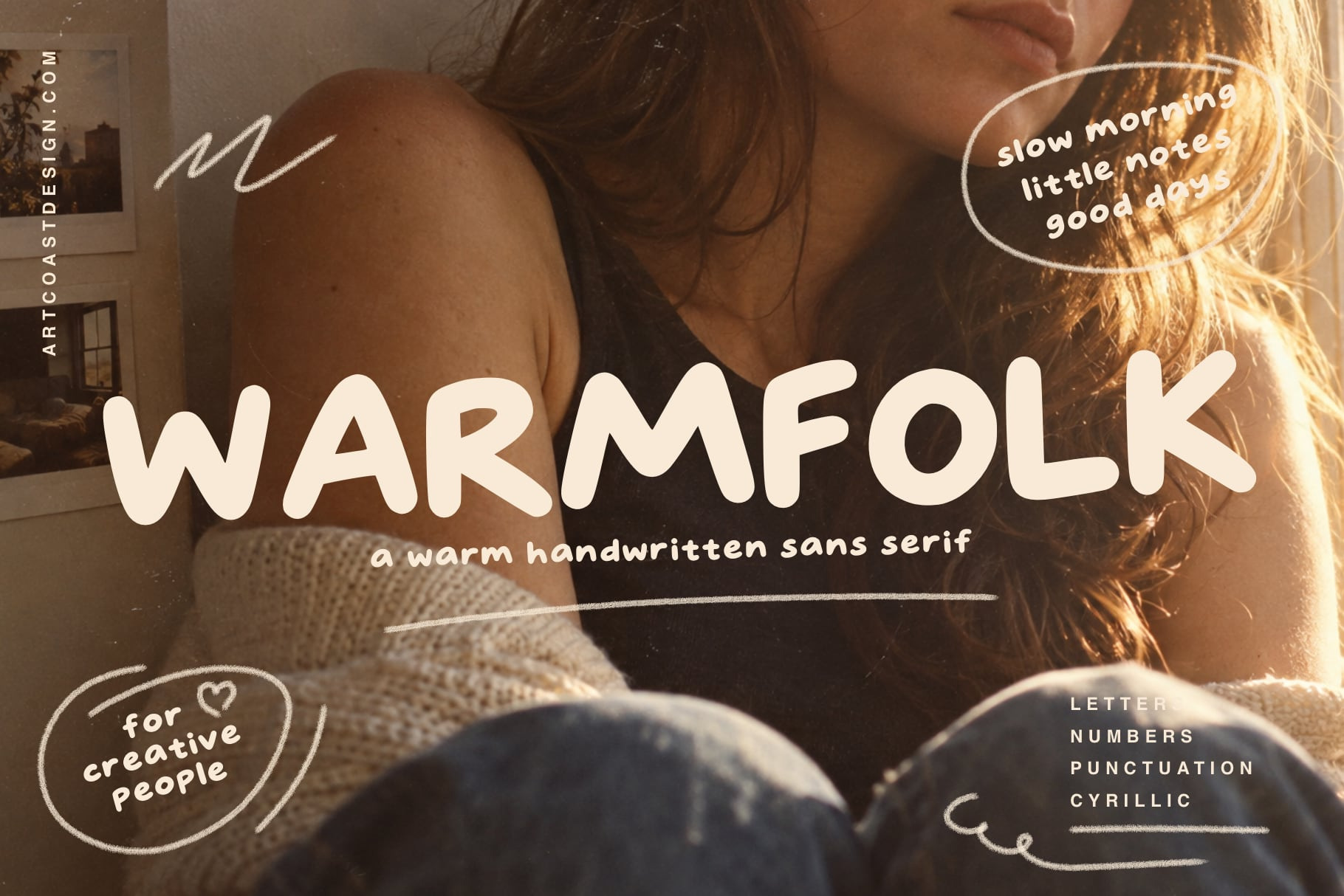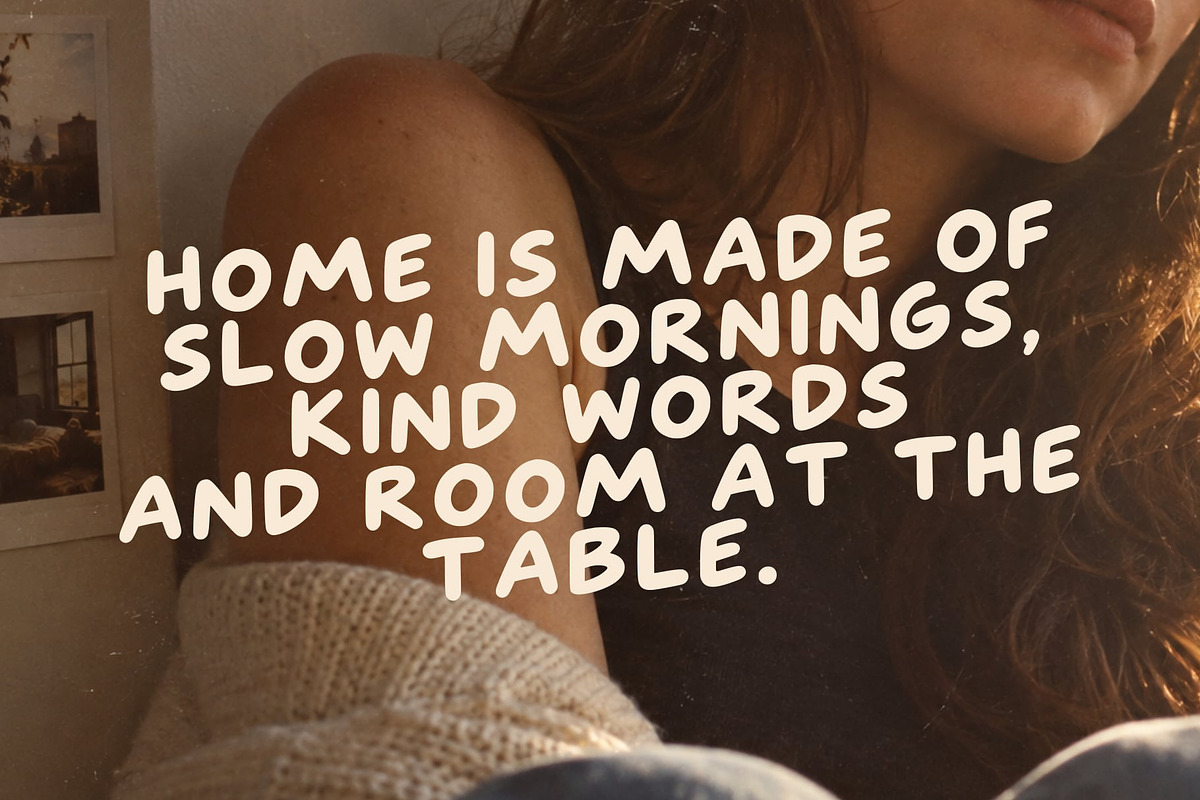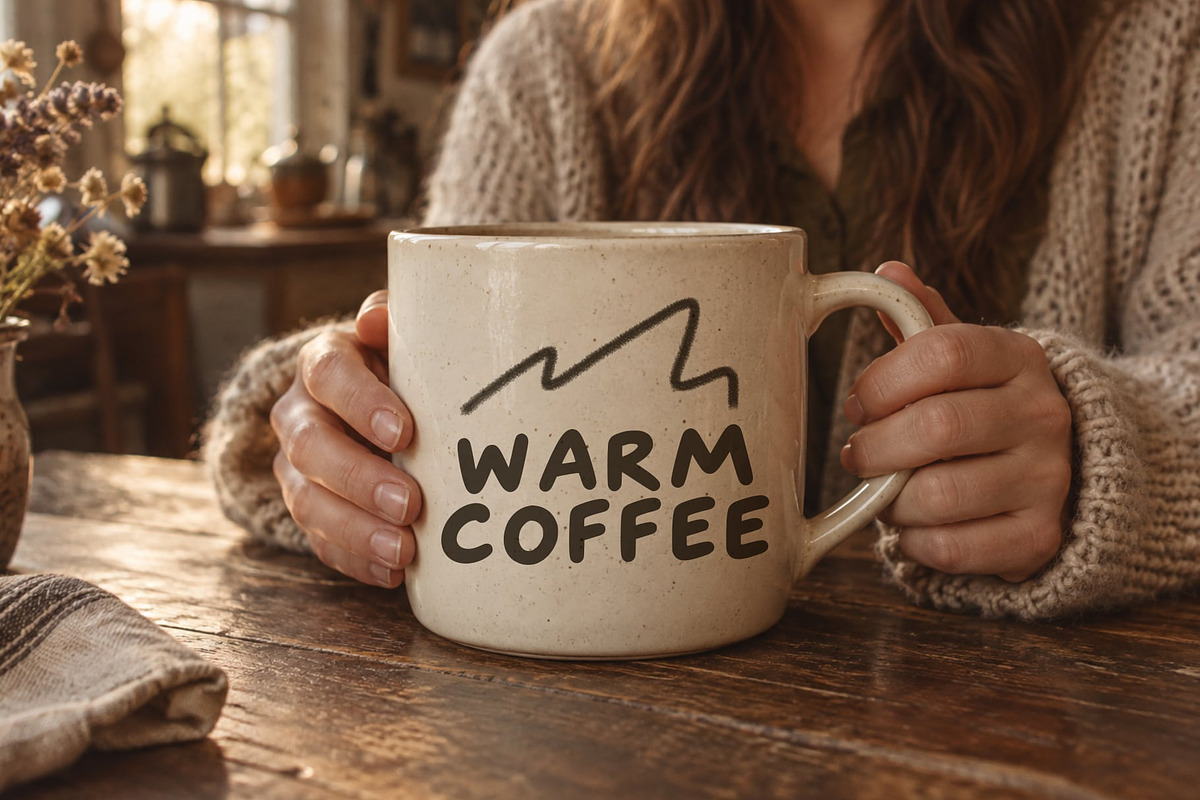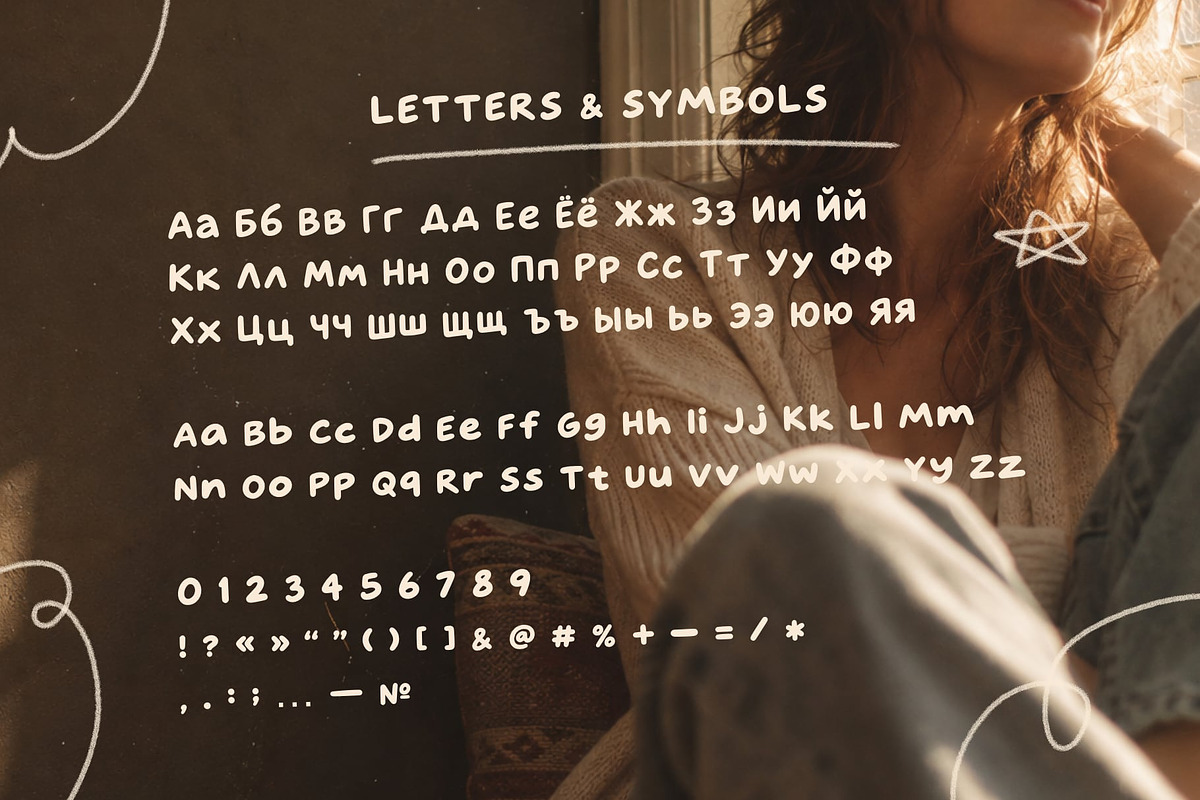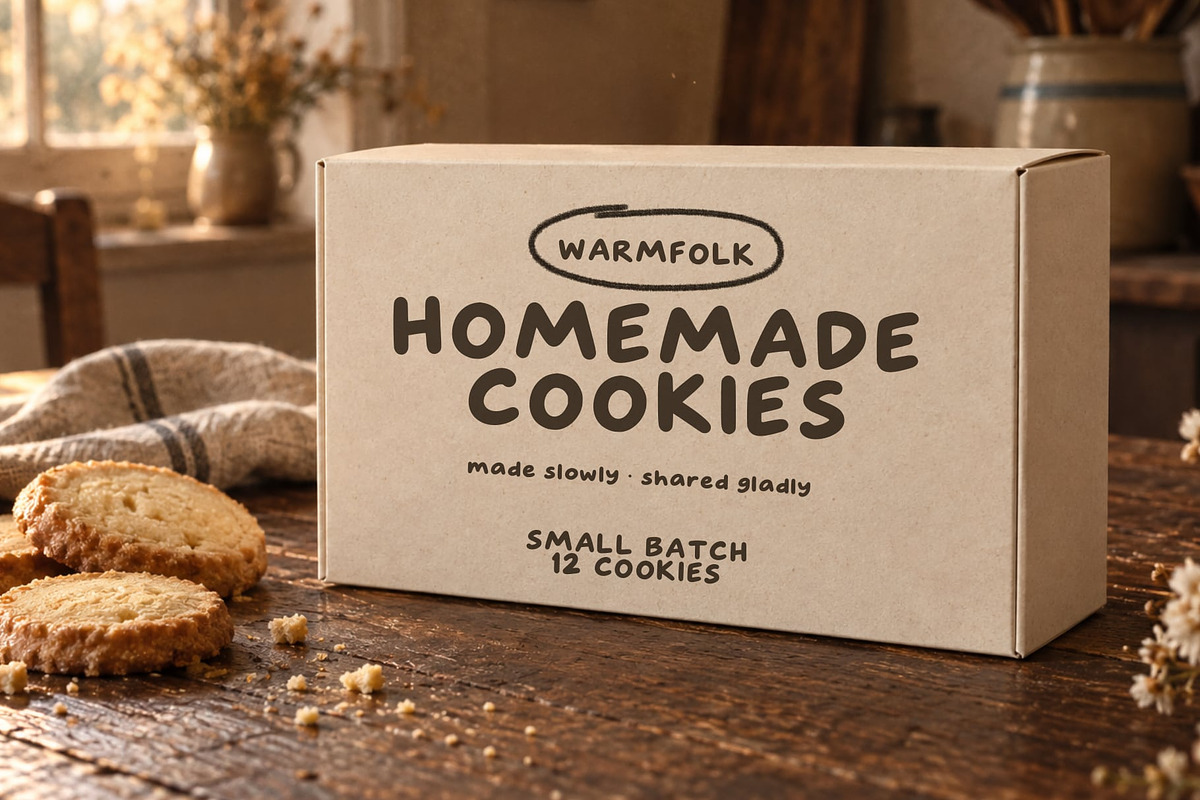
SA Warmfolk – Cozy Handwritten Font
Warmfolk is a warm and friendly handwritten display font with soft rounded shapes, playful imperfections, and a subtle vintage mood. It was created for designs that need a natural, approachable voice without losing readability.
Its bold, handcrafted letterforms work especially well in headlines and short phrases. Use Warmfolk for artisan packaging, food and café branding, logos, posters, book covers, greeting cards, invitations, social media graphics, children’s projects, and cozy lifestyle brands.
Perfect for
Packaging and product labels
Logos and visual identities
Café and food branding
Posters and editorial covers
Greeting cards and invitations
Children’s and creative projects
Short quotes and display typography
Warmfolk Regular
Uppercase and lowercase Latin characters
Uppercase and lowercase Russian Cyrillic, including Ё and ё
Numbers 0–9
Basic punctuation and symbols
Warmfolk brings warmth, personality, and a handmade feeling to both print and digital projects.